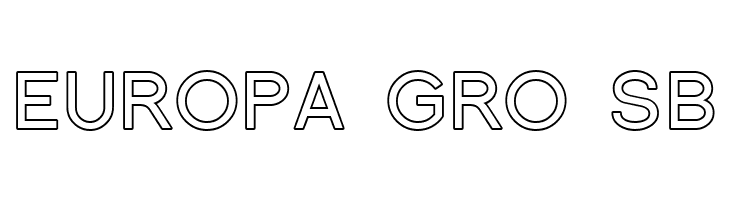
A modern, italicized font with medium contrast and a sleek, condensed design.
A modern, geometric font with a double-line structure and clean, open design.
A sleek, ultra-thin font with a modern and minimalistic design.
A sleek, thin, and condensed font with a modern and minimalist design.
A sleek, modern font with clean lines and subtle contrast, perfect for contemporary designs.
An elegant, fluid script font with sweeping cursive strokes.
A modern, condensed outline font with a sleek, double-line structure.
A modern, geometric font with bold, clean lines and a professional appearance.
A clean, minimalist font with thin lines and balanced spacing.
A tall, narrow, and modern font with clean lines and minimal contrast.
A playful and energetic handwritten font with bold, fluid strokes.
A modern, bold italic sans-serif font with medium contrast and normal spacing.
A modern, italic font with geometric precision and rounded edges.
A minimalist, thin, and modern font with elongated strokes and a sleek appearance.
A modern, geometric font with circular accents and a minimalist aesthetic.
A sleek, modern, and light italic font with smooth curves and ample spacing.
A modern geometric font with a blend of bold and thin lines, offering precision and clarity.
A modern font with a blend of geometric and organic elements, offering a dynamic and cohesive style.
A sleek, modern font with thin, elegant strokes and a minimalist design.
A modern, italic font with tall, narrow characters and a sleek, contemporary style.
A thin, backslant font with a sleek, modern design and minimalist style.
A modern, backslanted sans-serif font with a light weight and clean lines.
A sleek, modern, light italic font with clean lines and a contemporary style.
A modern, italic font with sleek lines and a dynamic appearance.
A sleek, modern, thin, and italicized font with extended width.
A sleek, extra-condensed, extra-light italic font with a modern aesthetic.
A sleek, extra condensed, light italic font with a modern and dynamic style.
A sleek, semi-condensed, light italic font with a modern and dynamic style.
A bold, modern sans-serif font with geometric precision and clarity.
A bold, modern font with clean, geometric lines and a contemporary feel.
A modern, geometric font with rounded edges and consistent strokes.
A sleek, modern font with elongated, minimalistic characters and smooth curves.
A modern, geometric font with clean lines and a minimalist aesthetic.
A bold, modern font with a unique cut-out style and geometric precision.
A decorative font with letters encased in book spines, offering a playful and thematic design.